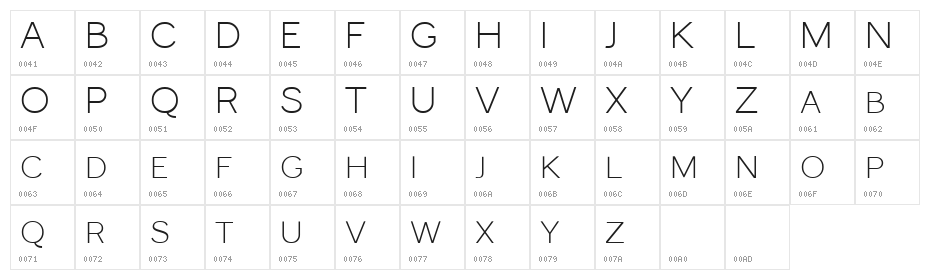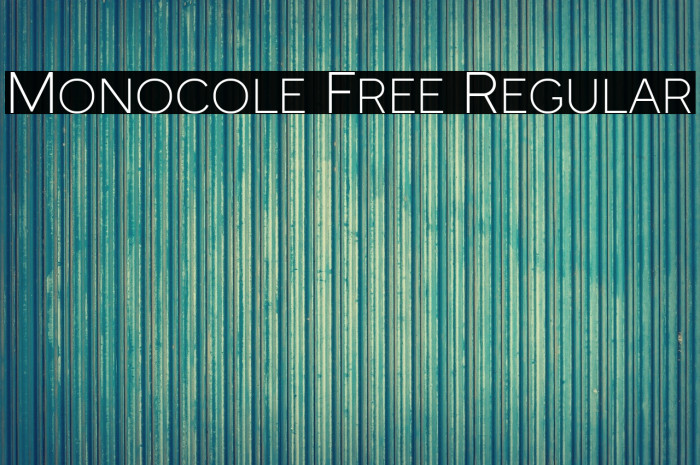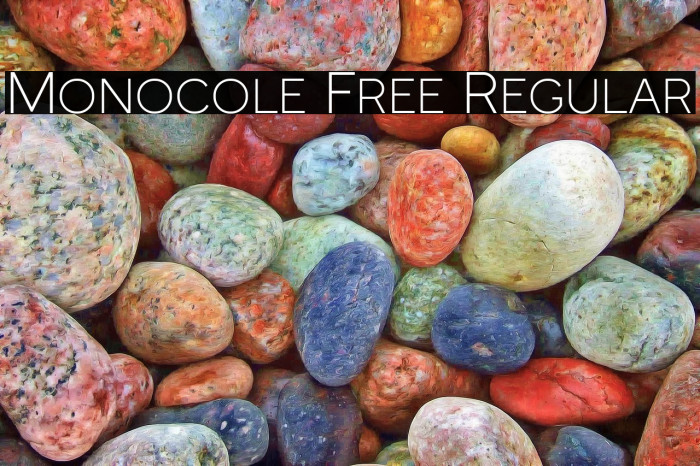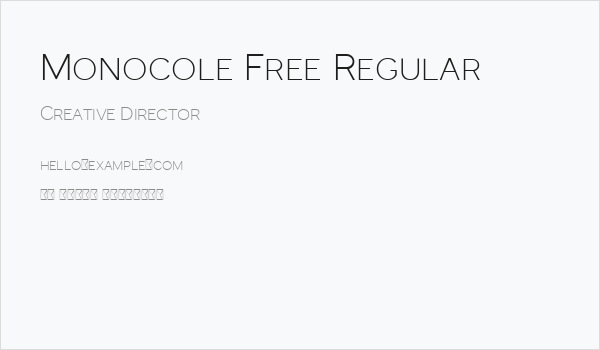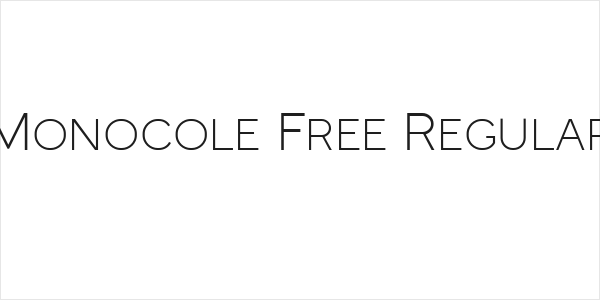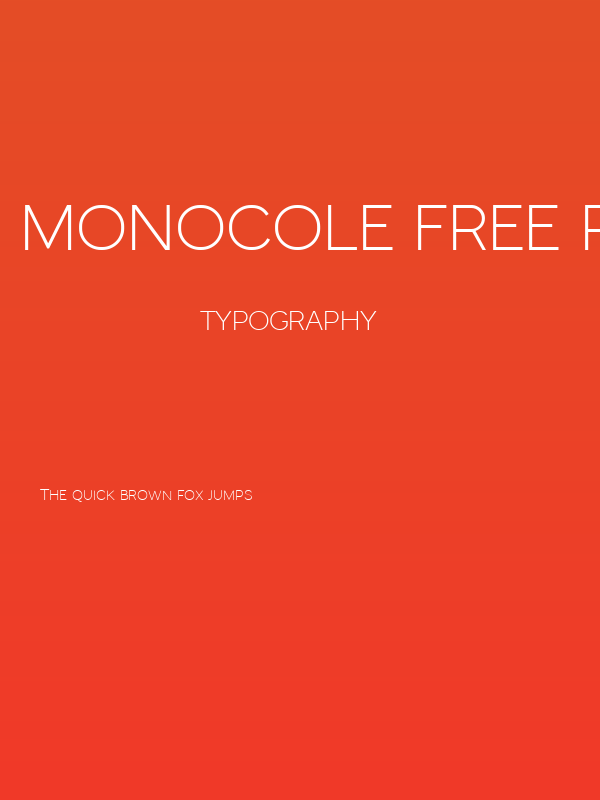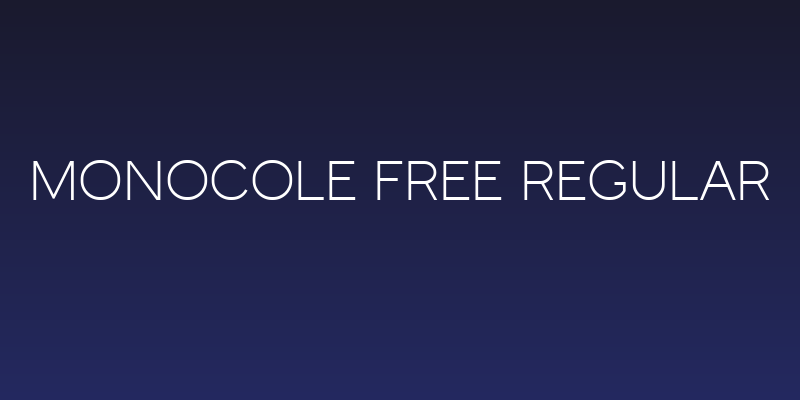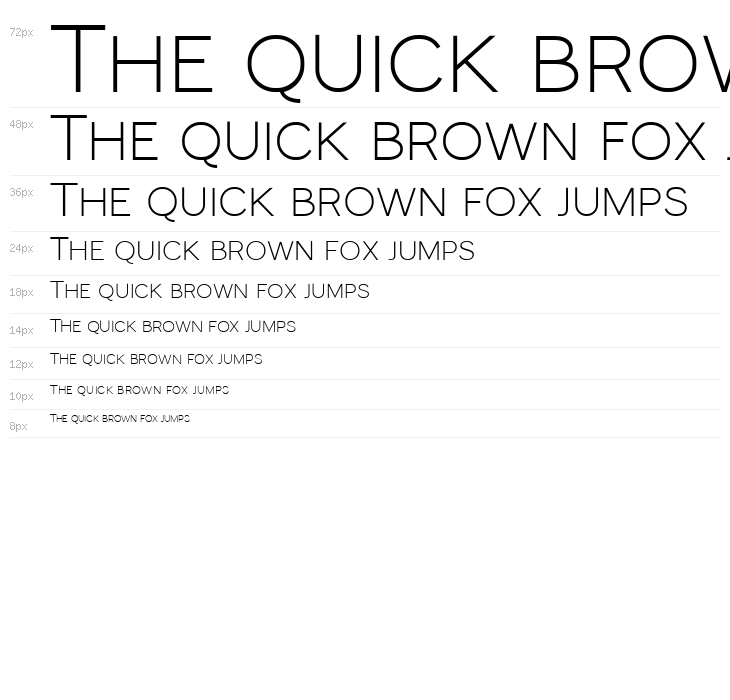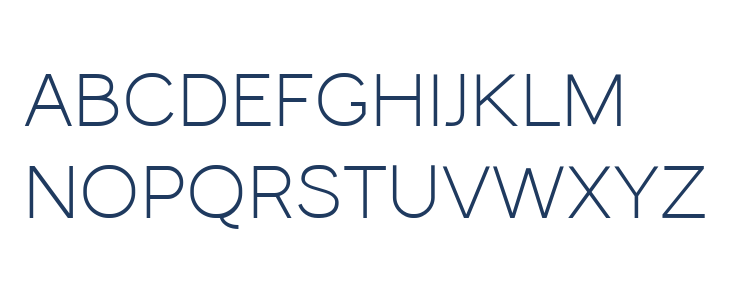
Monocole Free Regular Font
Monocole Free Regular Description
This font features a clean and modern design with a minimalist aesthetic. The characters are evenly spaced with a consistent stroke width, giving it a sleek and professional appearance. The uppercase letters are tall and slightly narrow, while the lowercase letters maintain a uniform height, contributing to a balanced look. The numerals are clear and easy to read, making them suitable for various applications. Special characters are designed with simplicity in mind, ensuring they blend seamlessly with the rest of the font. Overall, this font exudes a sense of elegance and sophistication, making it ideal for contemporary design projects.